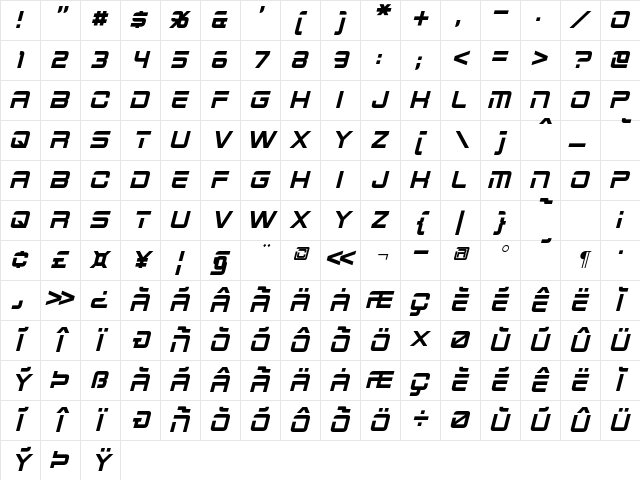
Complete 2015 Cruiser Italic glyph index. Displaying only characters natively supported by 2015 Cruiser Italic font.
2015 Cruiser is a composed and adaptable typeface that performs quietly and consistently across a wide range of design contexts. The slanted form adds forward momentum and visual energy.